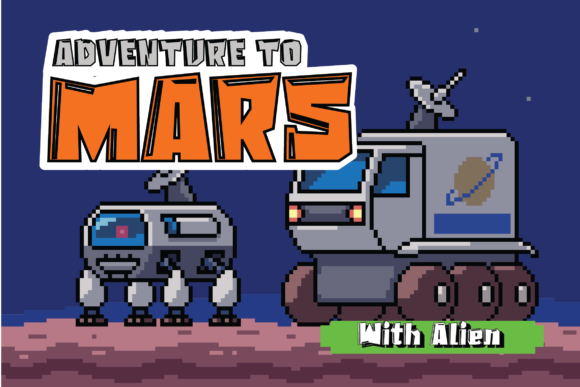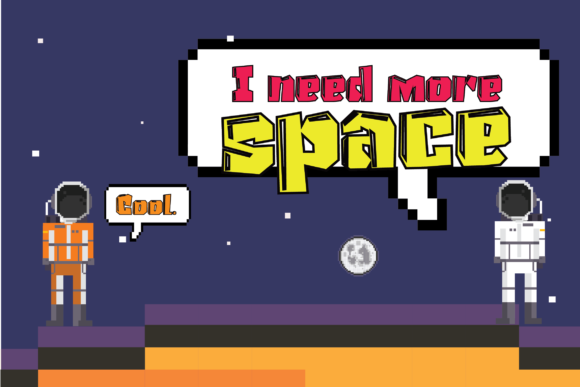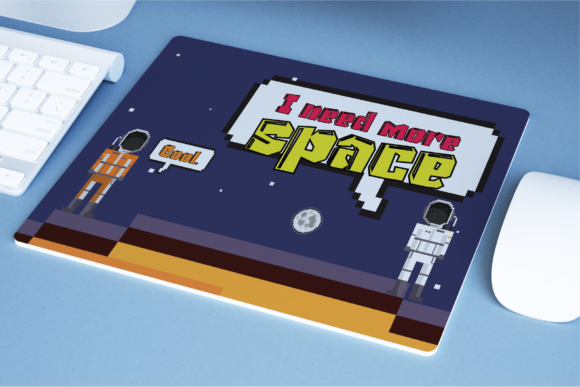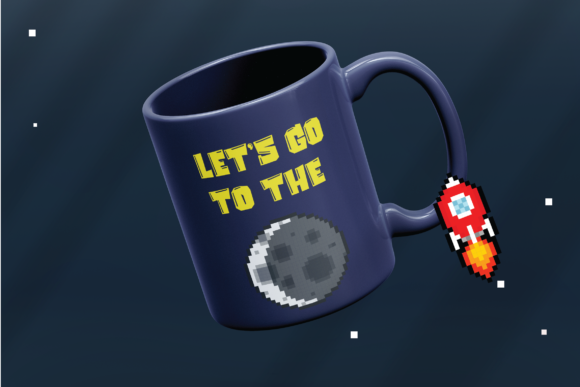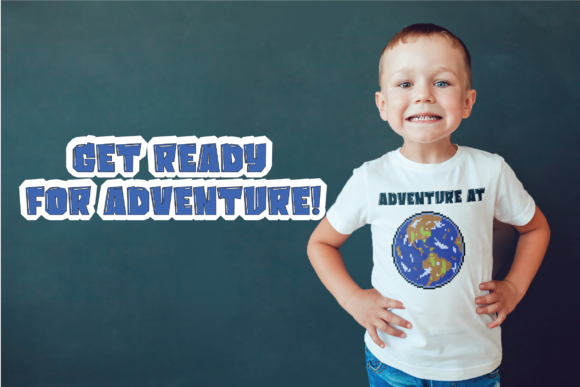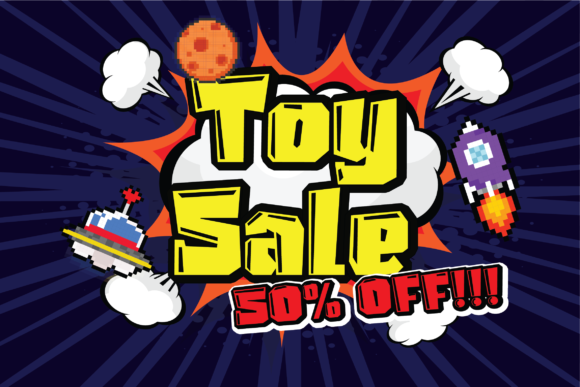
Introduction to Lowpoly Font Font
Fonts play a crucial role in design, and the Lowpoly Font font is a typeface that brings both character and versatility to any project. Whether you’re working on a branding project, a website, or a print design, the Lowpoly Font font offers a unique style that can elevate your work.
Lowpoly is a cool, playful and uniquely designed display font.
Whether you are using it for cartoon-related designs, children games, quotes, titles, brand names, book covers, posters, or just any creation that requires a touch of joy, this font is a great choice .
Key Features of Lowpoly Font Font
Why Choose Lowpoly Font Font?
The Lowpoly Font font is more than just a typeface – it’s a design tool that helps you communicate your message with style and clarity. Its unique character set and versatile design make it suitable for a wide range of applications, from elegant invitations to bold headlines.
With its carefully crafted letterforms and balanced proportions, the Lowpoly Font font ensures readability and visual appeal across all mediums.
What makes Lowpoly Font font special?
The Lowpoly Font font stands out with its unique design, exceptional readability, and versatility across various design applications.